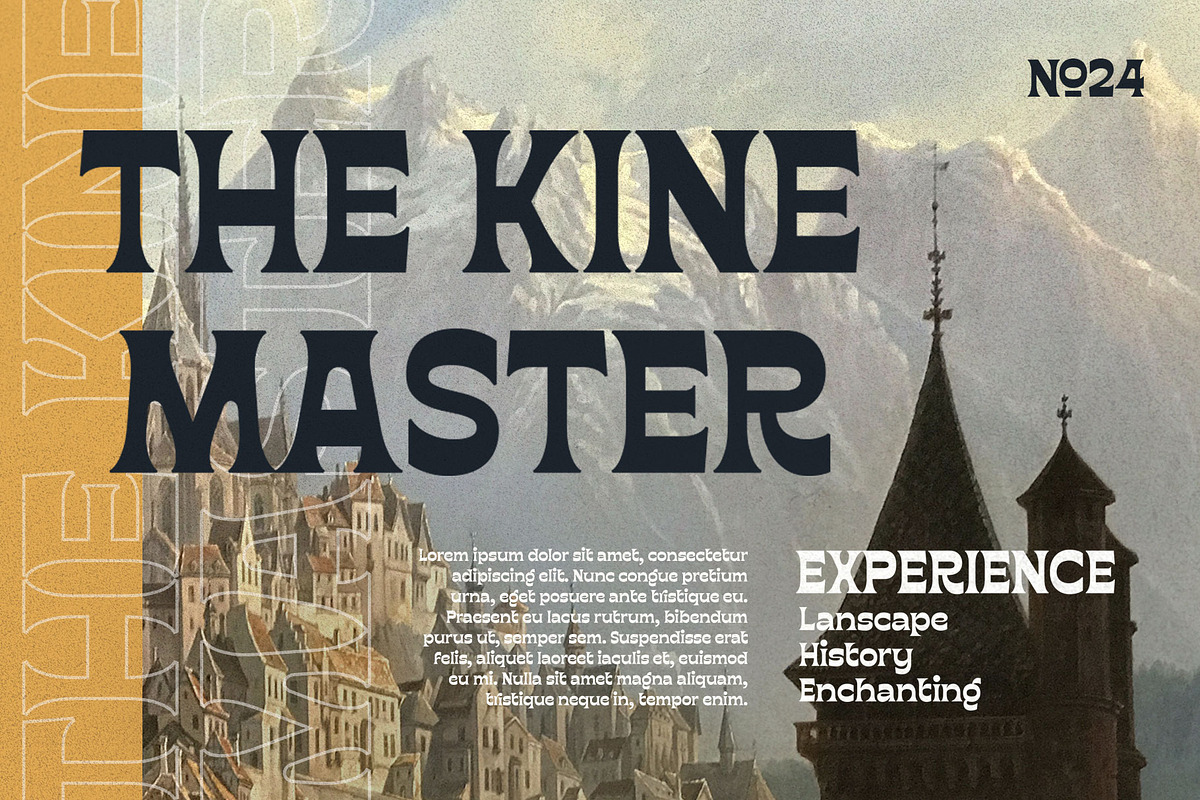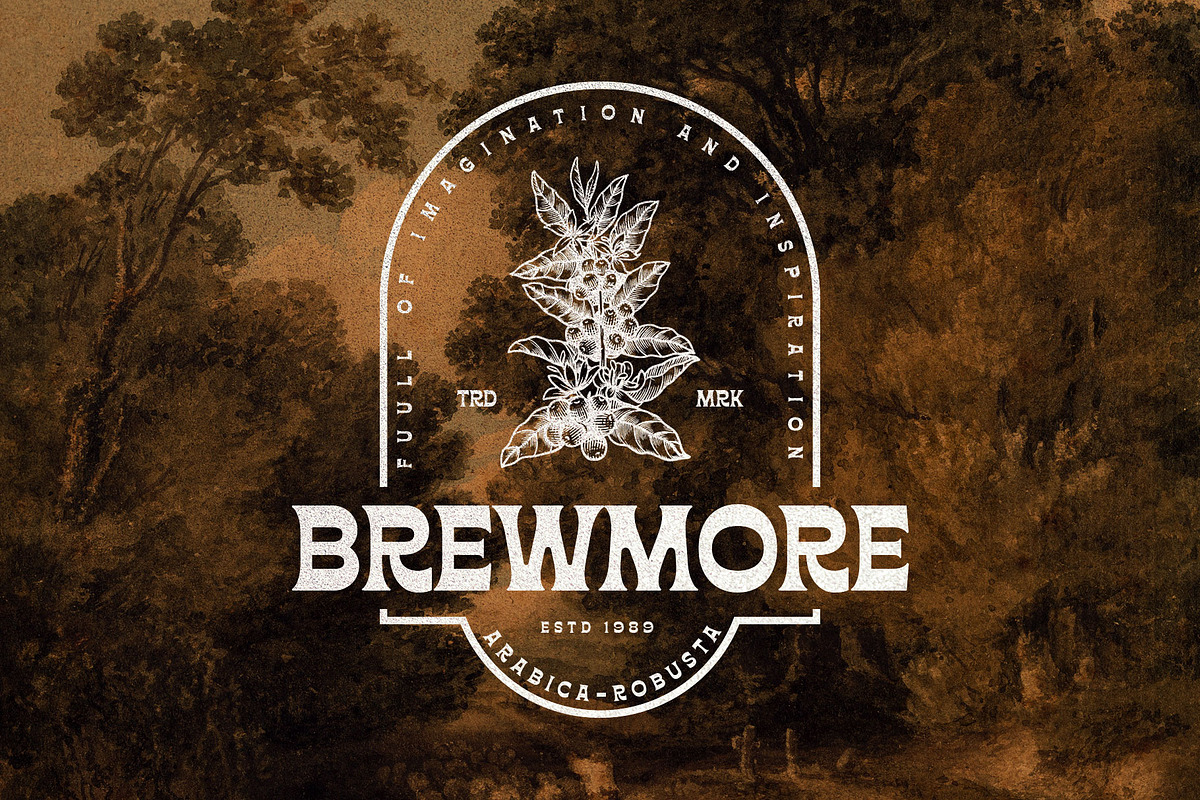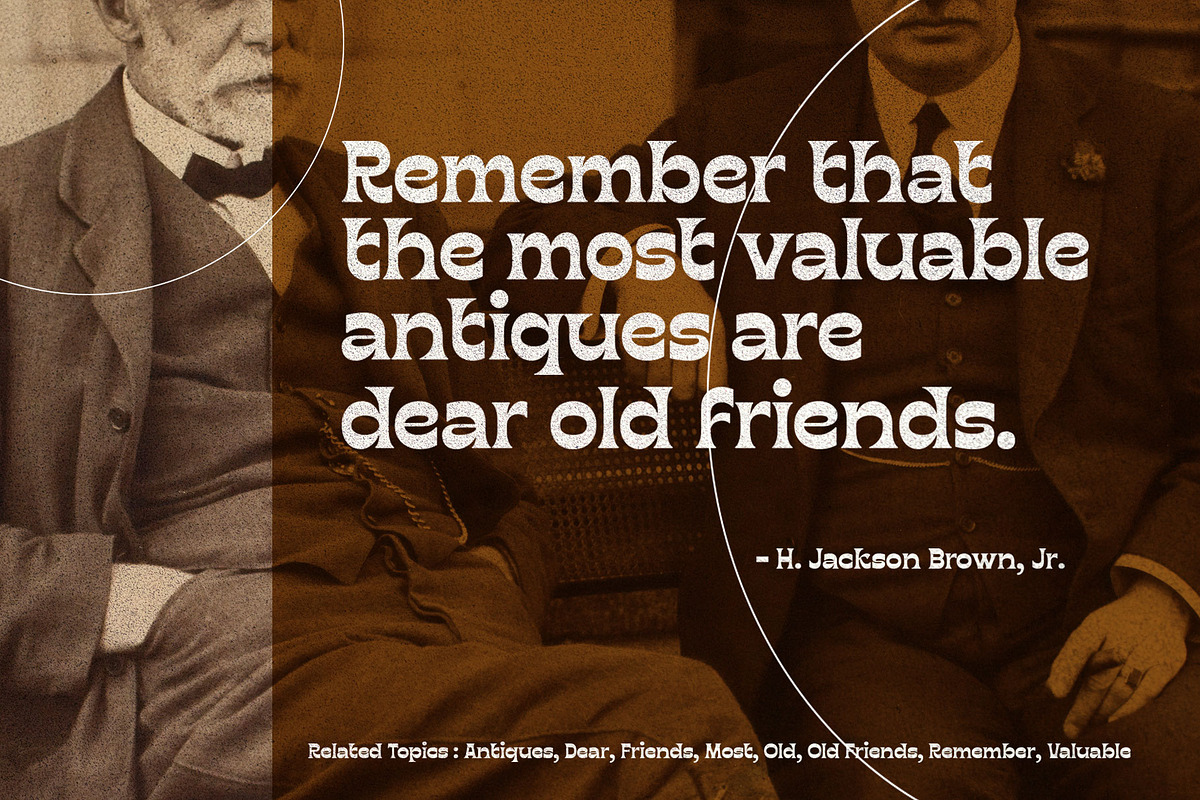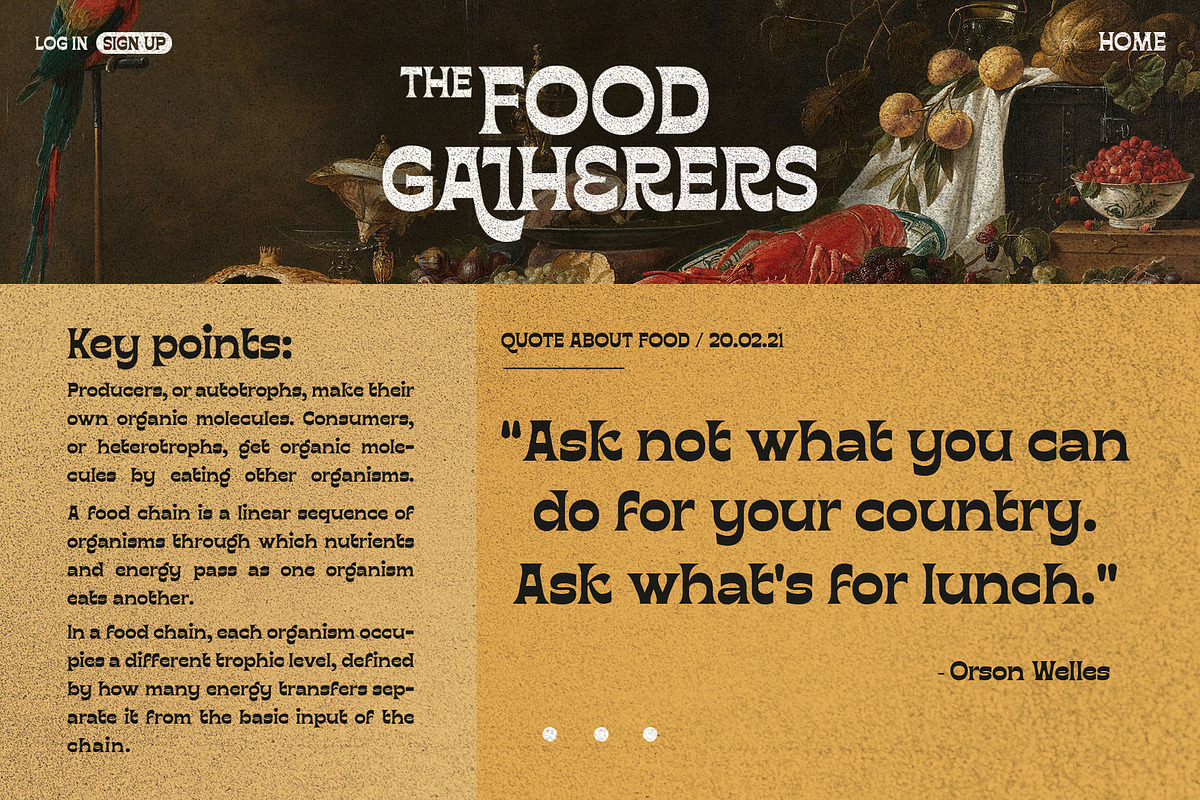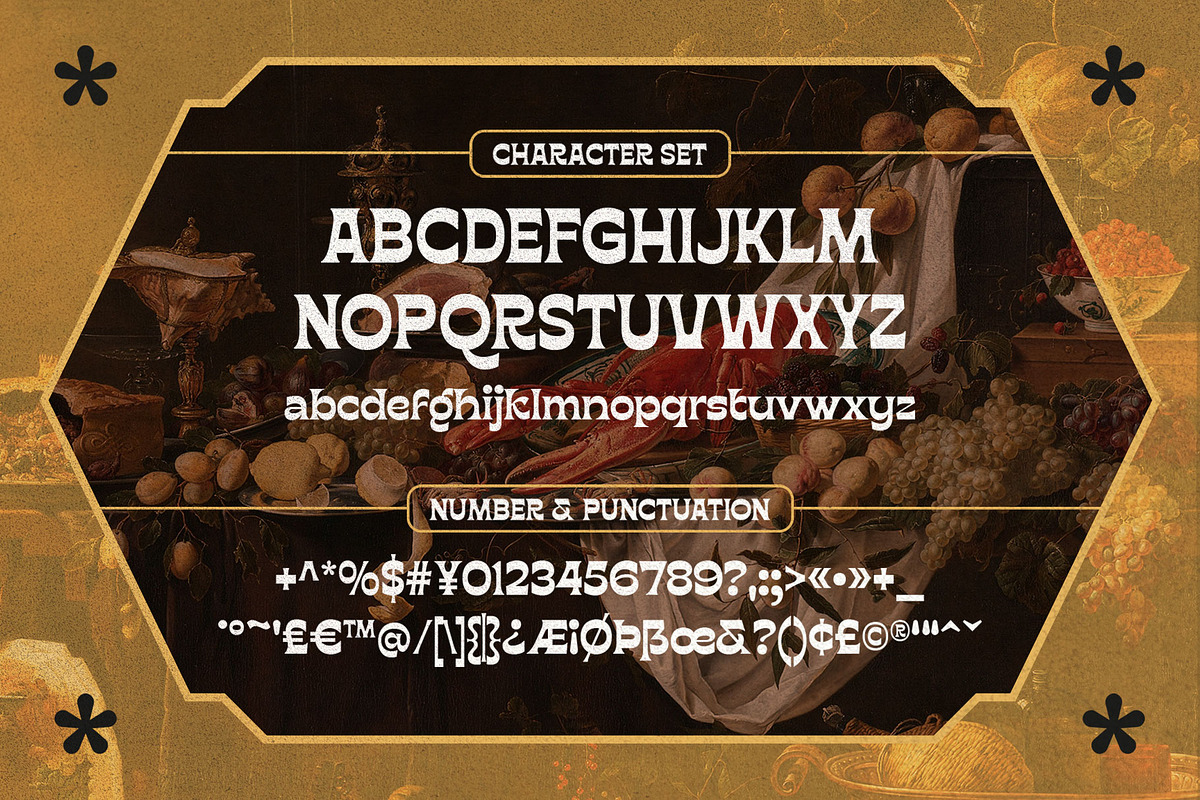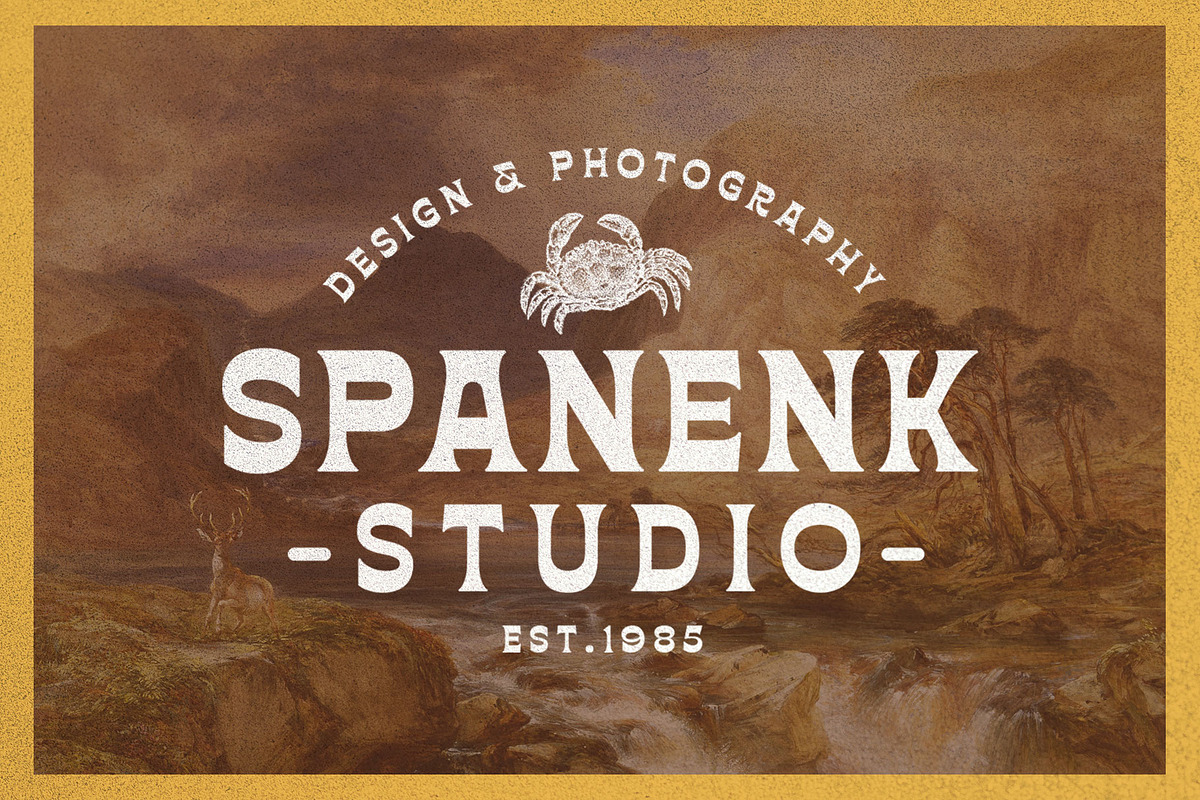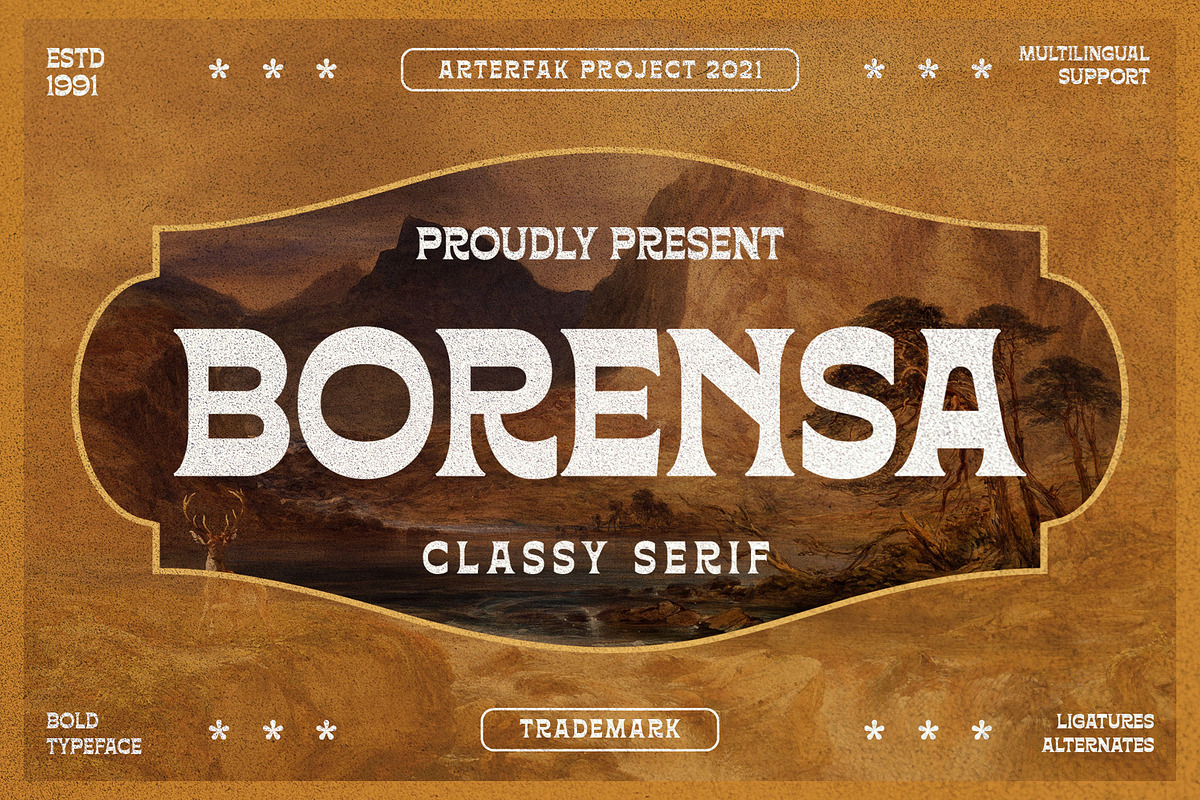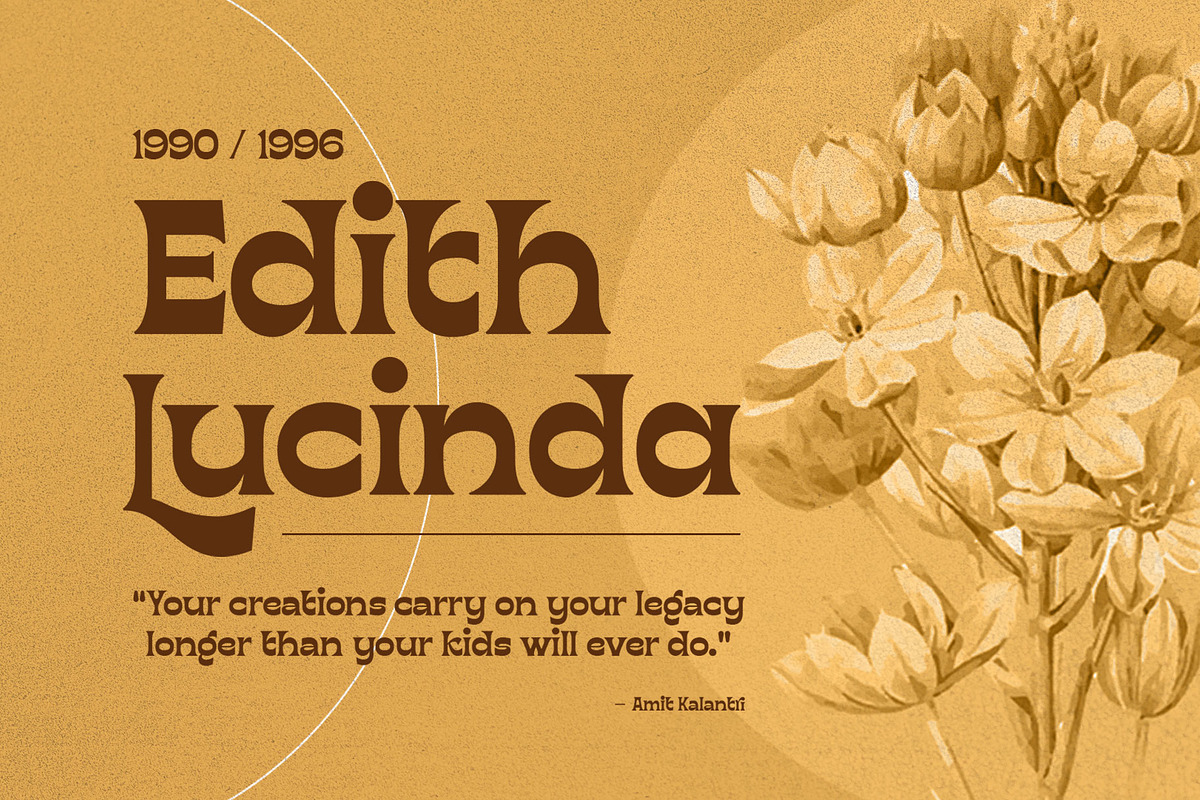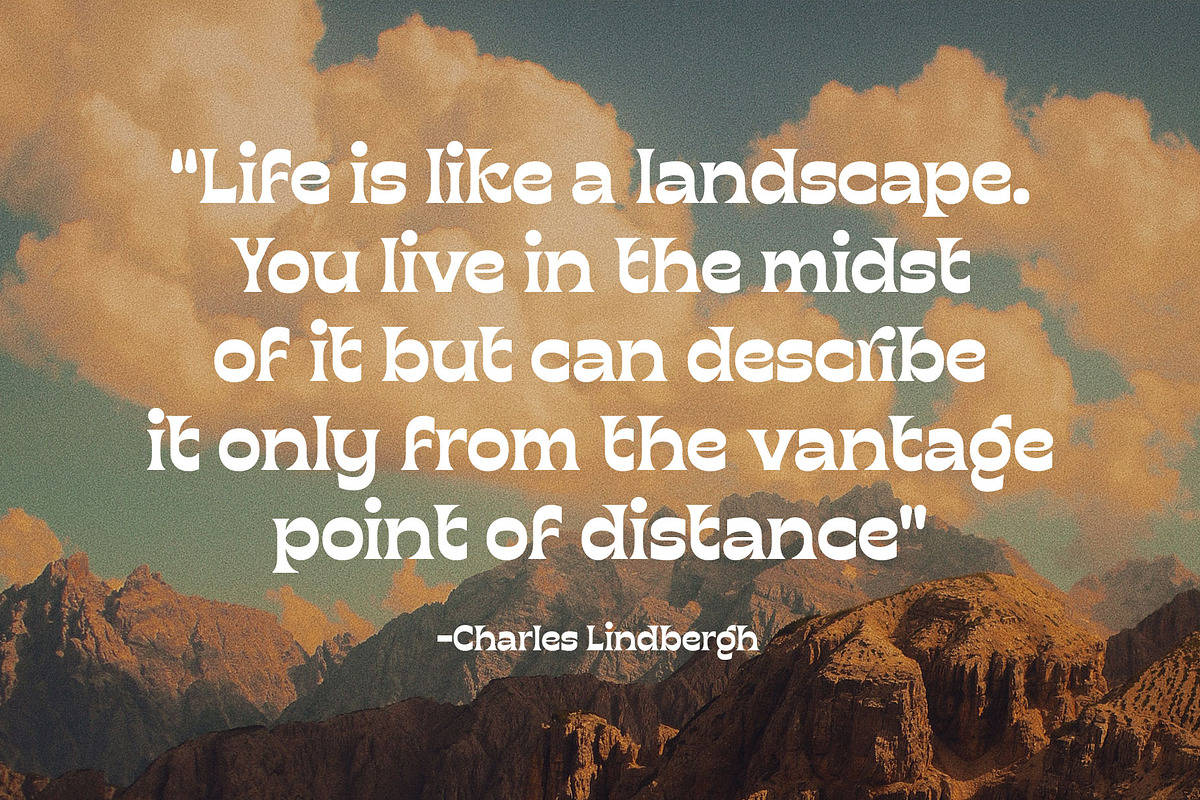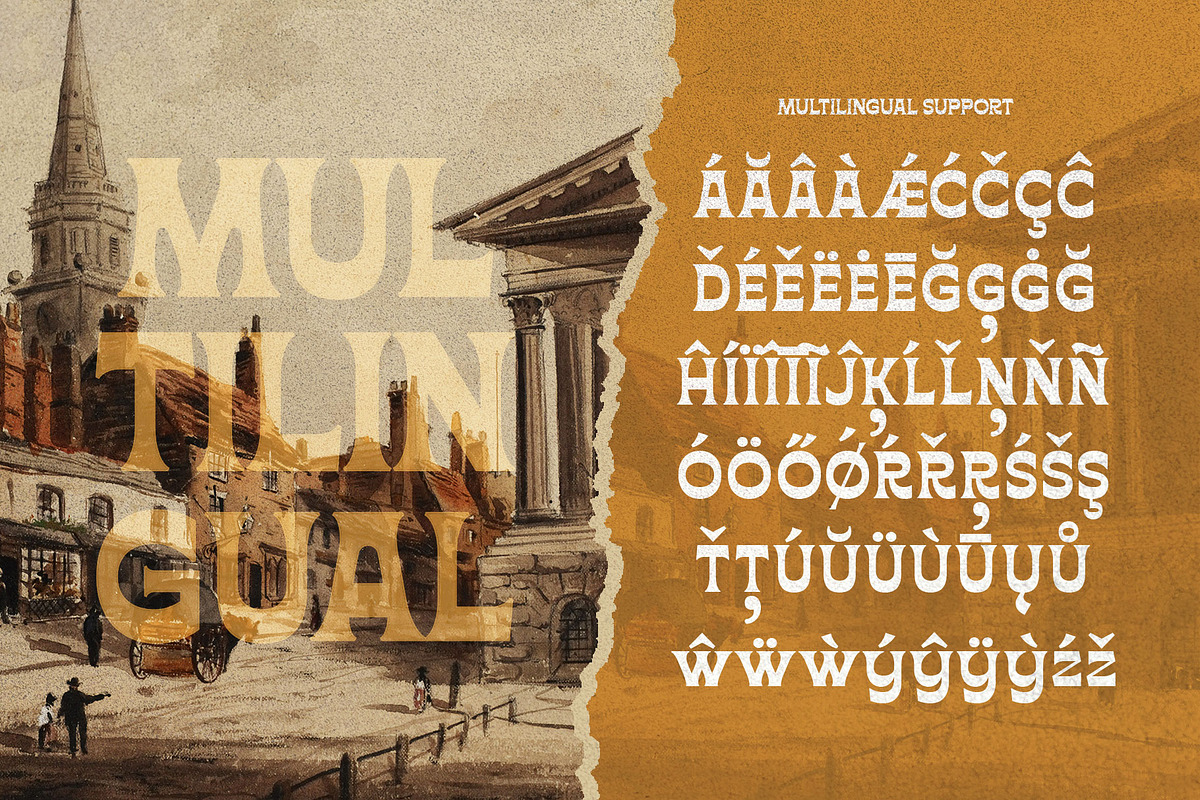
Borensa
Introducing Borensa. our brand new serif exploration with reversed contrast and unique shapes. Inspired by the historical books and vintage signage. Borensa is classically elegant to be applied to formal designs and can be used for the headline and long text.
This font also has some alternates characters to give you some options in making the design. You can use Borensa for editorial, label, invitation, newspaper, books, poster, flyer, signboard, logo, branding, merchandise, apparel, and many more!
- Numbers & symbols
- Stylistic alternates
- Ligatures.